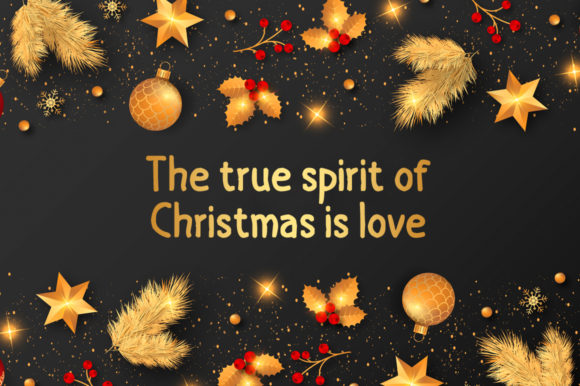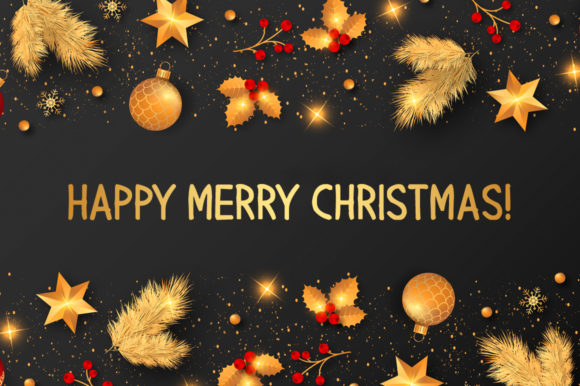
Hello Christmas Font: A Sweet and Friendly Handwritten Font for Your Holiday Designs
Are you looking for a font that captures the essence of the holiday season? Look no further than the Hello Christmas font! This sweet and friendly handwritten font is perfect for designers and crafters who want to add a personal touch to their holiday designs. In this article, we’ll take a closer look at the Hello Christmas font, its features, and how you can use it to create stunning holiday designs.
What is Hello Christmas Font?
Hello Christmas is a beautiful handwritten font that is designed to bring a touch of warmth and personality to your designs. Its natural and unique style makes it incredibly fitting to a large pool of designs, from holiday cards and invitations to decorations and crafts. The font is perfect for designers and crafters who want to create unique and eye-catching designs that stand out from the crowd.
Features of Hello Christmas Font
The Hello Christmas font has several features that make it a great choice for your holiday designs. Some of its key features include:
- Handwritten style: The font has a beautiful handwritten style that gives it a personal and unique touch.
- Natural and unique: The font’s natural and unique style makes it incredibly fitting to a large pool of designs.
- Easy to read: The font is easy to read, making it perfect for use in holiday cards, invitations, and other designs.
- Versatile: The font is versatile and can be used in a variety of designs, from holiday decorations to crafts and DIY projects.
How to Use Hello Christmas Font
The Hello Christmas font is easy to use and can be incorporated into a variety of designs. Here are some ideas for using the font:
- Holiday cards and invitations: Use the font to create beautiful and personalized holiday cards and invitations.
- Holiday decorations: Use the font to create festive holiday decorations, such as banners, garlands, and signs.
- Crafts and DIY projects: Use the font to add a personal touch to your crafts and DIY projects, such as scrapbooking, sewing, and paper crafting.
- Social media graphics: Use the font to create festive social media graphics, such as holiday-themed Facebook posts and Instagram stories.
Tips for Using Hello Christmas Font
Here are some tips for using the Hello Christmas font:
- Use it with other fonts: The Hello Christmas font can be paired with other fonts to create a unique and eye-catching design.
- Experiment with colors: The font looks great in a variety of colors, so don’t be afraid to experiment and find the perfect color for your design.
- Add graphics and images: The font can be used with graphics and images to create a festive and eye-catching design.
The Hello Christmas font is a sweet and friendly handwritten font that is perfect for designers and crafters who want to add a personal touch to their holiday designs. Its natural and unique style makes it incredibly fitting to a large pool of designs, and its ease of use makes it a great choice for a variety of projects. Whether you’re creating holiday cards and invitations, decorations, or crafts and DIY projects, the Hello Christmas font is sure to bring a touch of warmth and personality to your designs.
- What is the Hello Christmas font? The Hello Christmas font is a sweet and friendly handwritten font that is perfect for holiday designs.